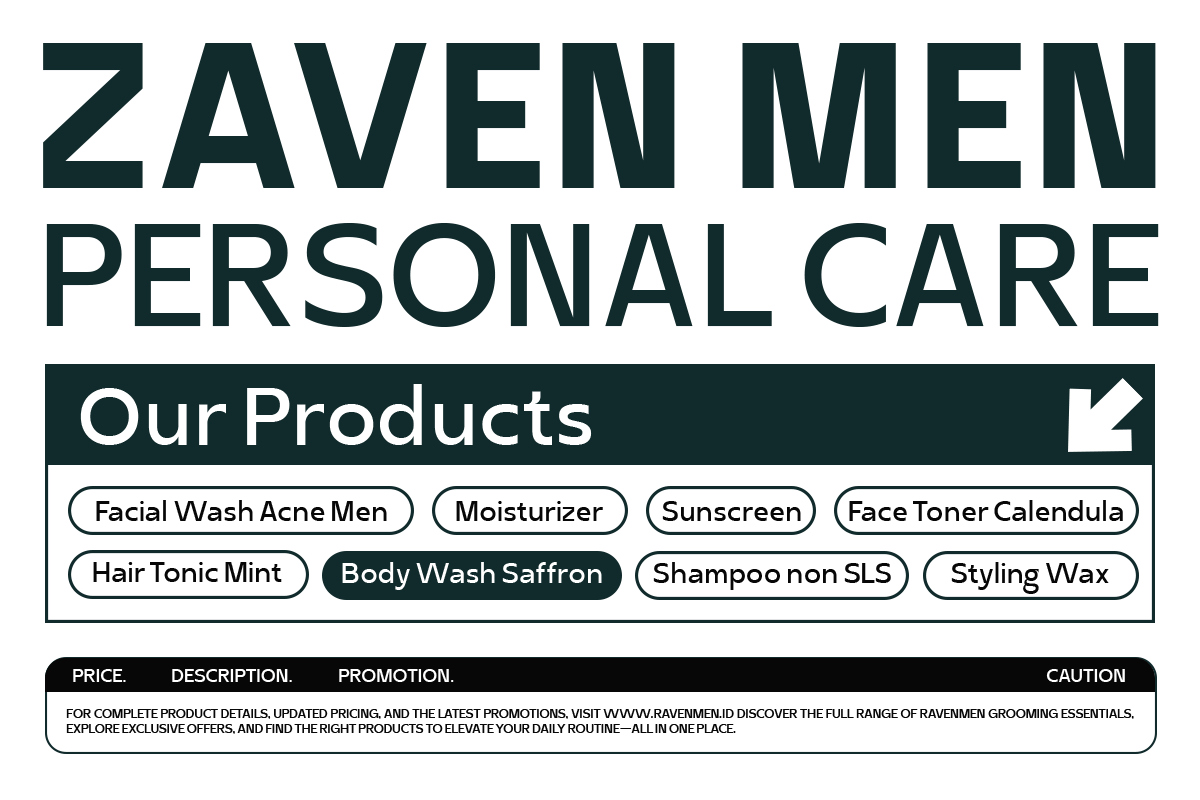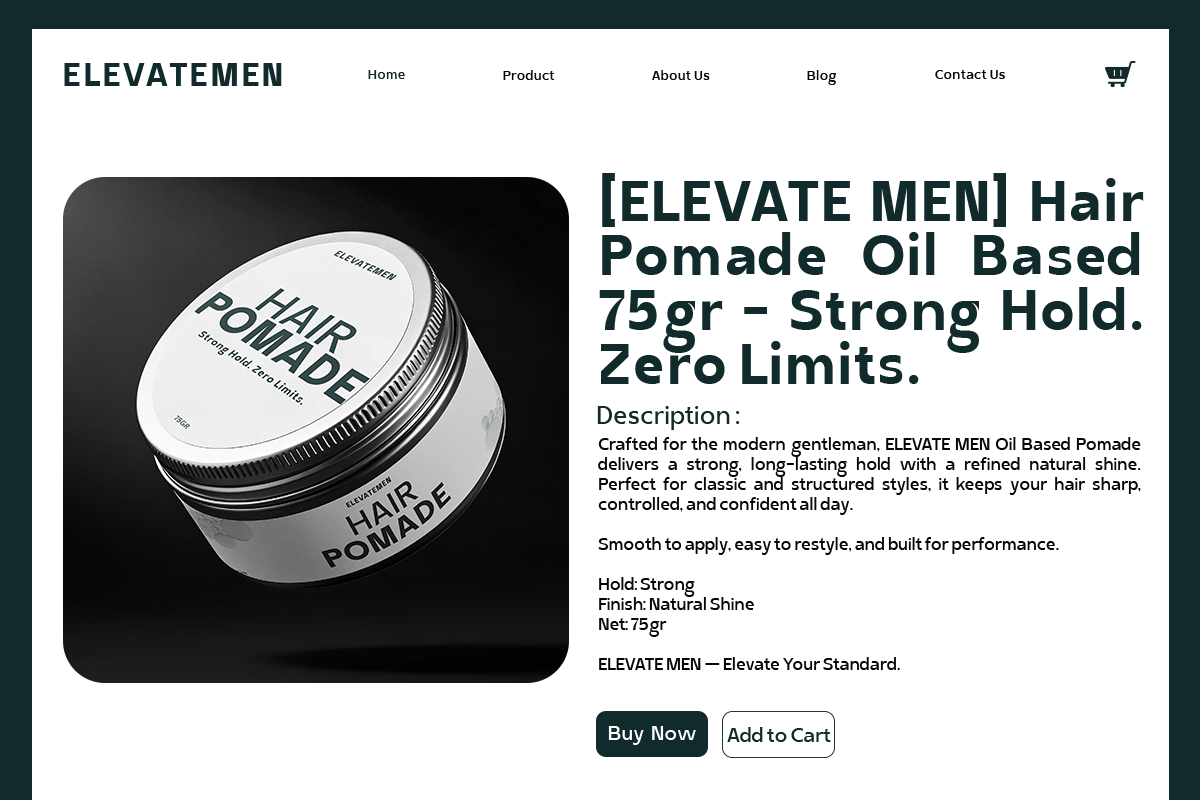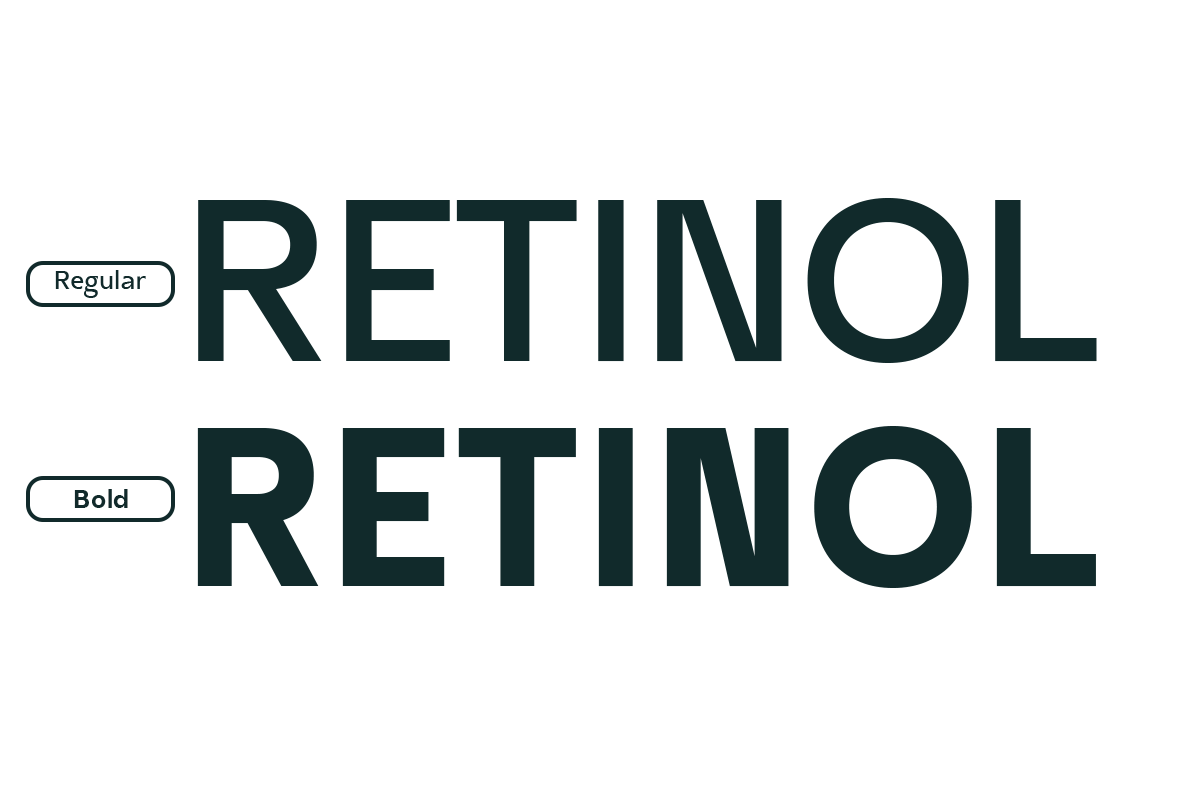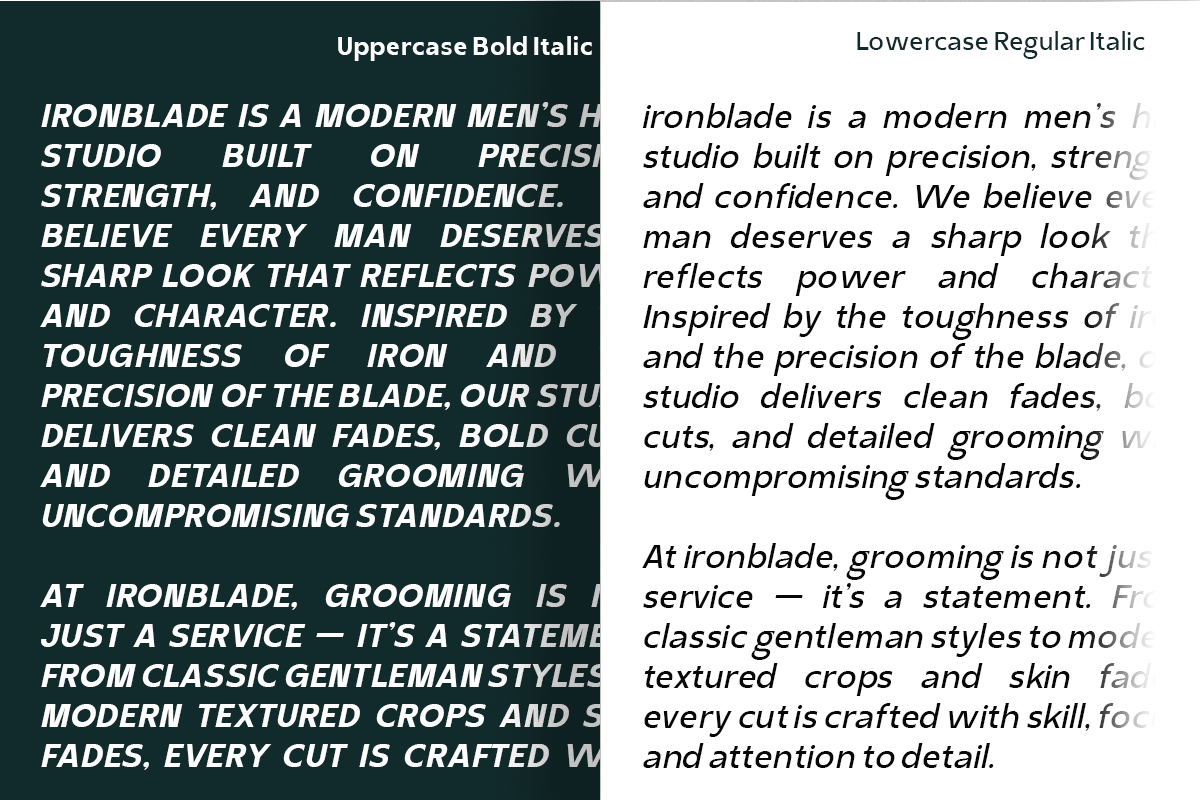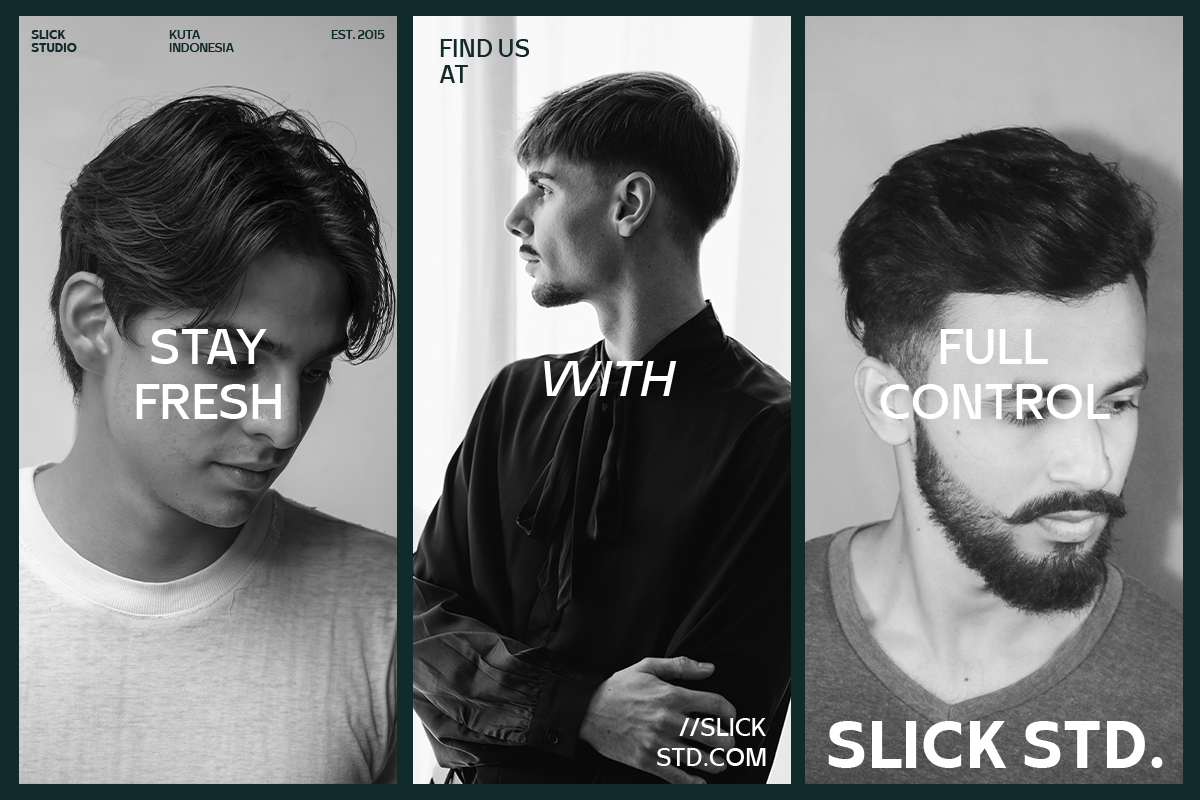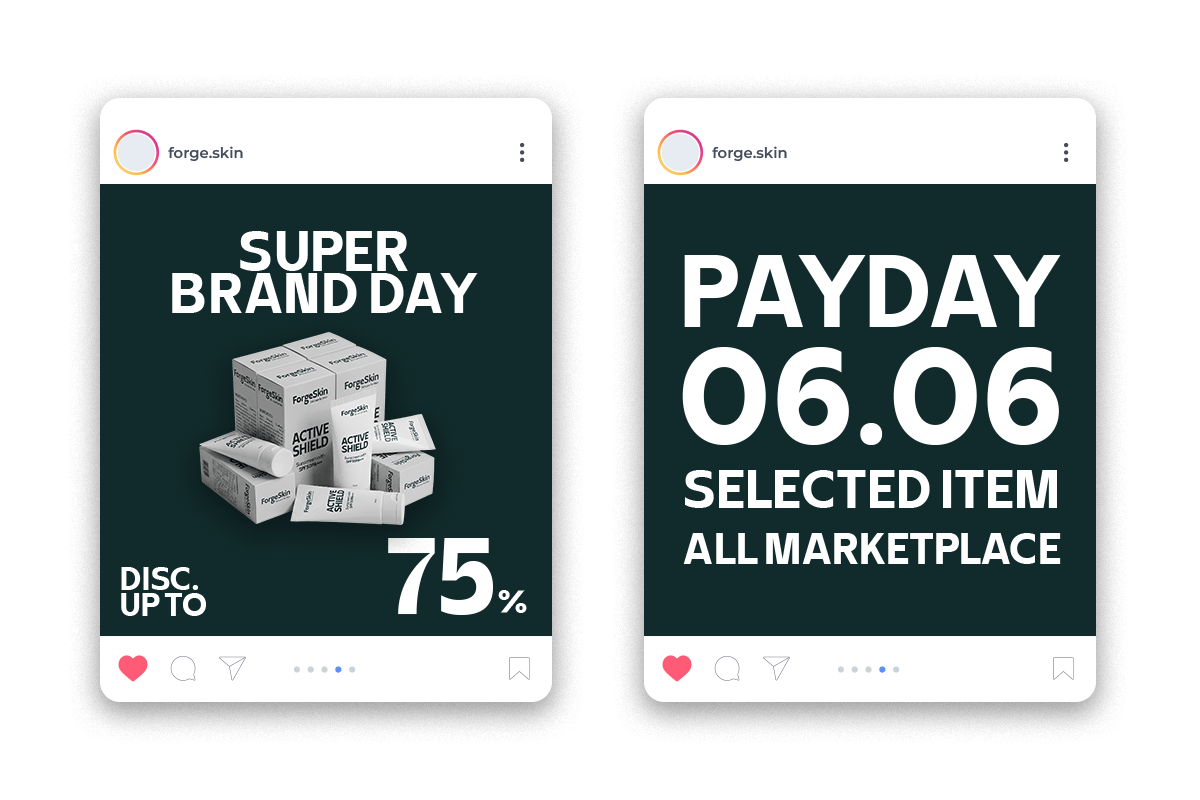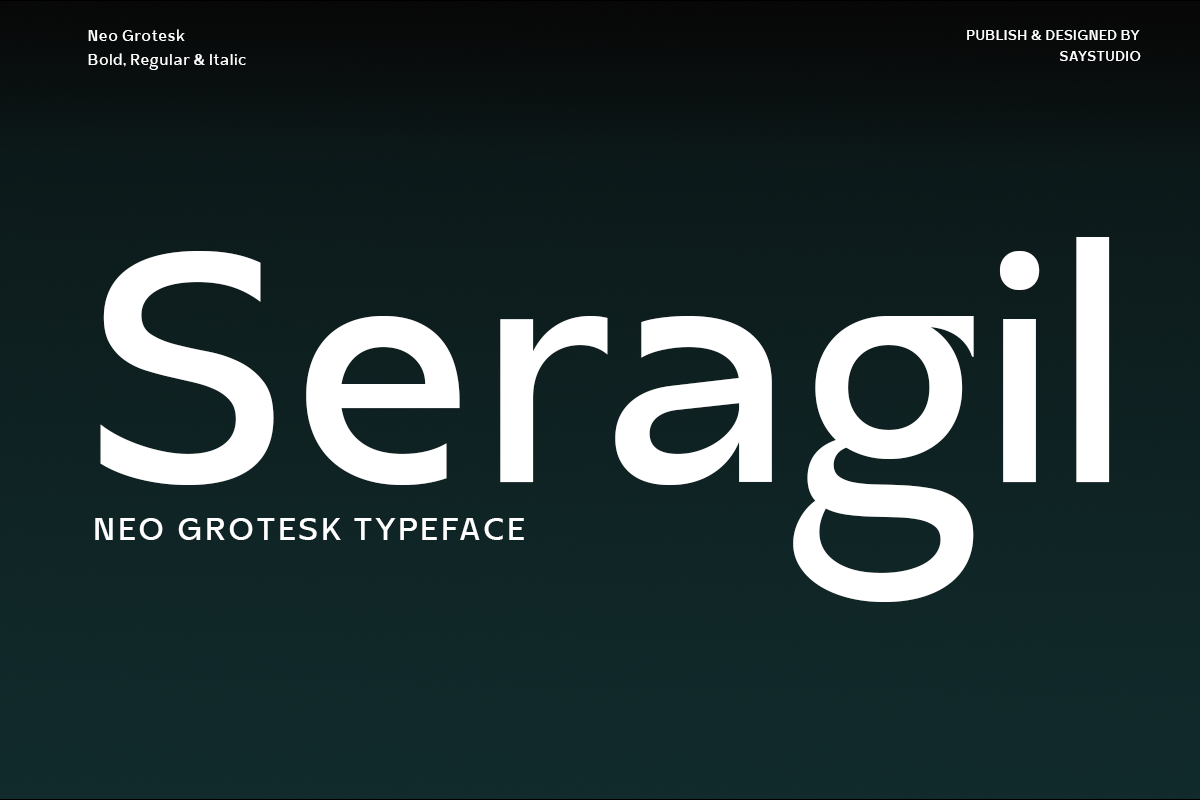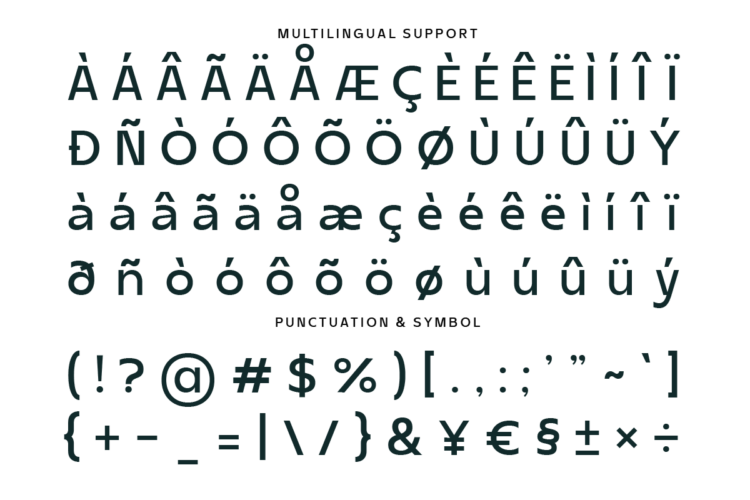
Neo Grotesk Sans – Seragil
Seragil is a modern neo grotesk typeface designed with clarity, balance, and contemporary precision in mind. Inspired by classic grotesk typography, this font features clean lines, neutral shapes, and a highly functional structure that delivers excellent readability. Its modern interpretation makes it suitable for a wide range of professional and creative applications.
Perfect for branding, corporate identity, UI/UX design, editorial layouts, websites, and modern logos, Seragil offers a versatile typographic solution that adapts effortlessly across digital and print media. Its minimalist design ensures a clean and professional appearance while maintaining a strong visual presence.
Whether used for tech startups, corporate branding, modern interfaces, or editorial design, Seragil provides a timeless and reliable typographic foundation. The font combines classic grotesk influence with modern simplicity, making it ideal for designers who seek clarity, functionality, and contemporary style.